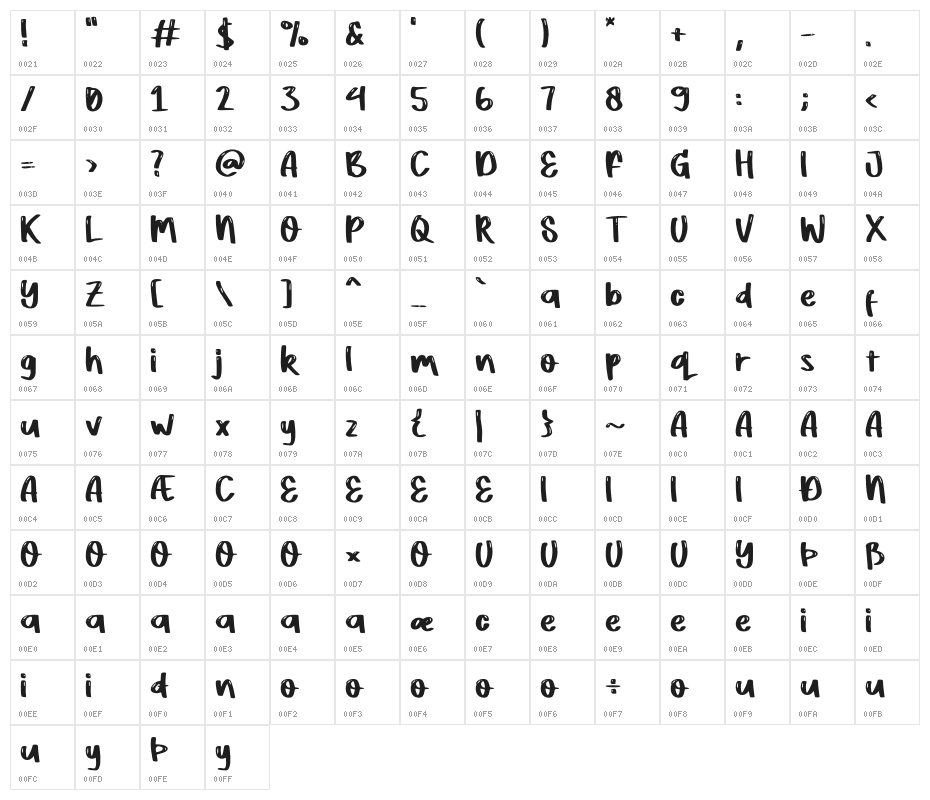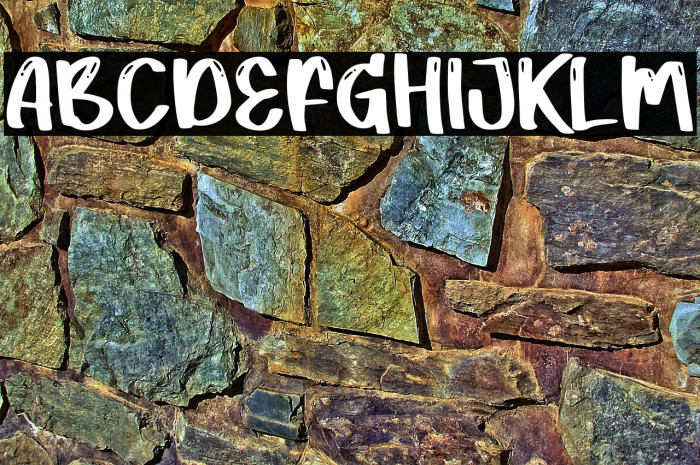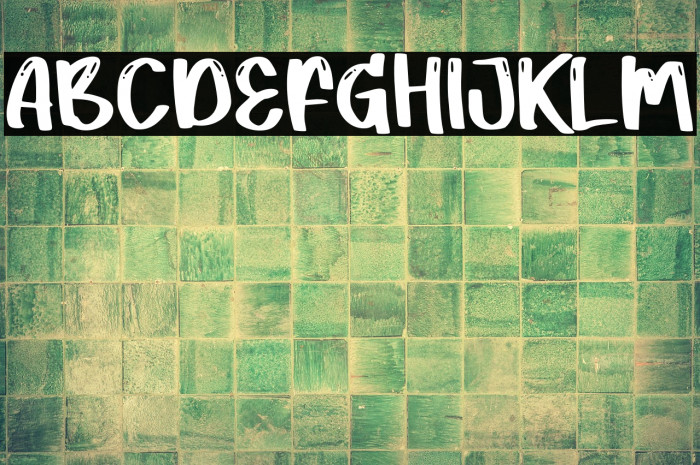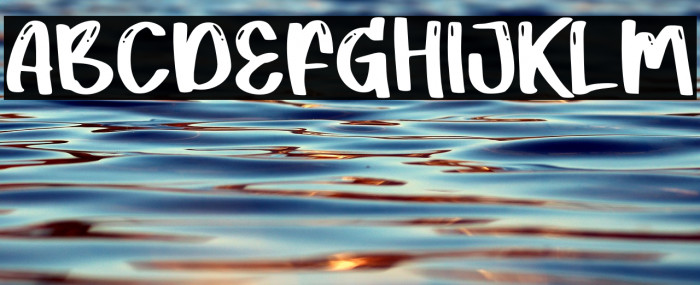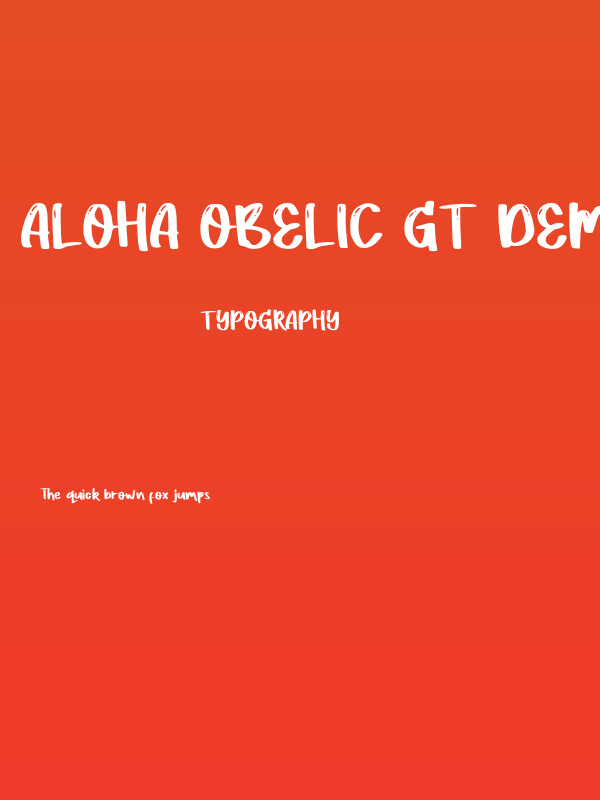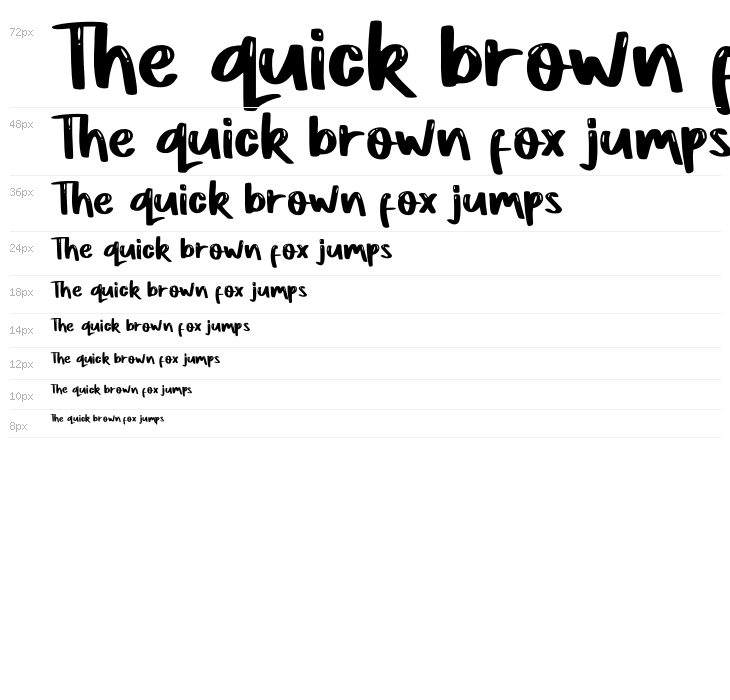
Aloha Obelic GT Demo Font
Aloha Obelic GT Demo Description
This font features a bold, playful, and energetic style with a handwritten appearance. The characters are thick and rounded, giving a sense of warmth and friendliness. The uppercase and lowercase letters maintain a consistent flow, while the numbers and special characters complement the overall design. The strokes are uneven, adding to the casual and informal feel. This font is ideal for projects that require a personal touch or a fun, lively vibe. Its unique style makes it stand out, perfect for creative and artistic applications.
| Overall Style | Playful, Energetic, Casual |
| Proposed Projects | Ideal for greeting cards, posters, children's books, and branding that requires a personal and fun touch. |